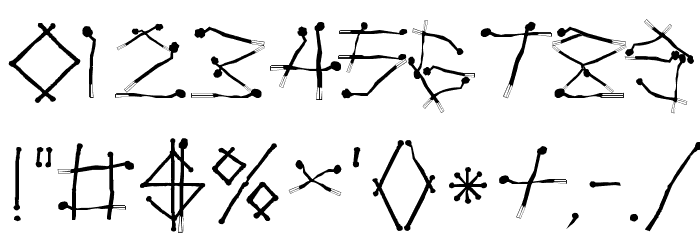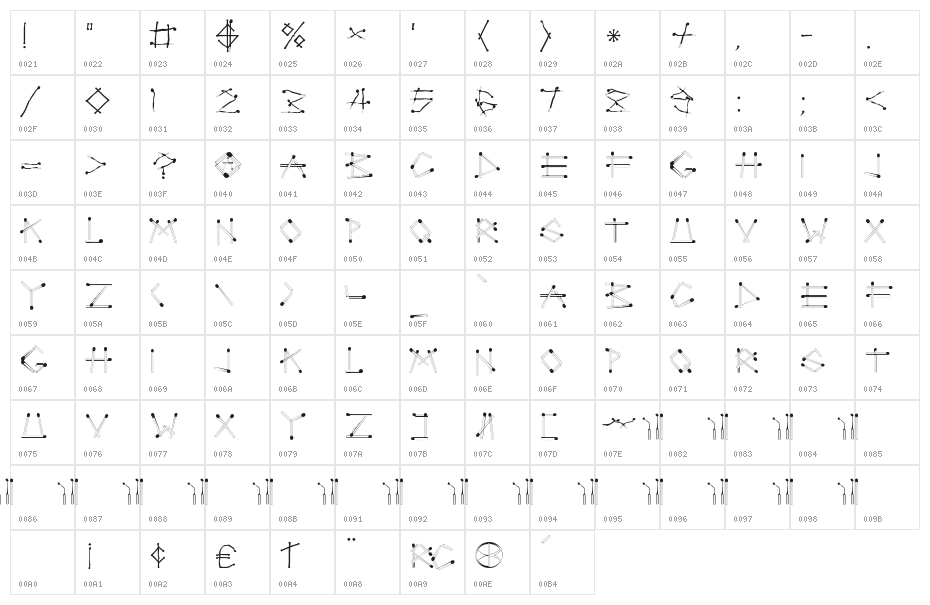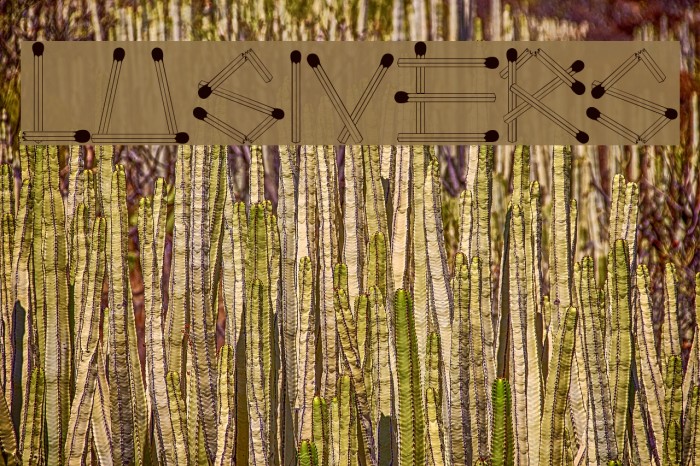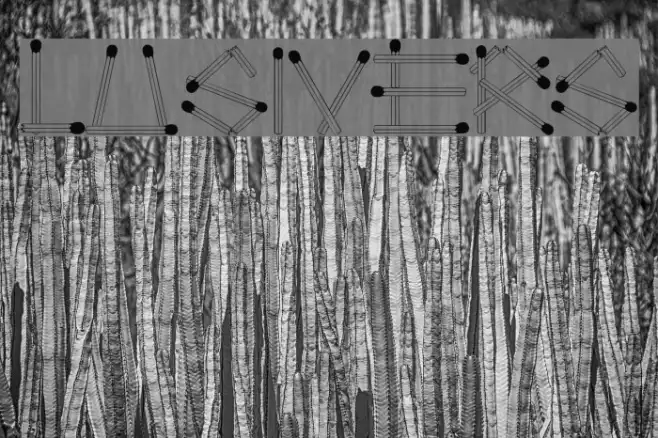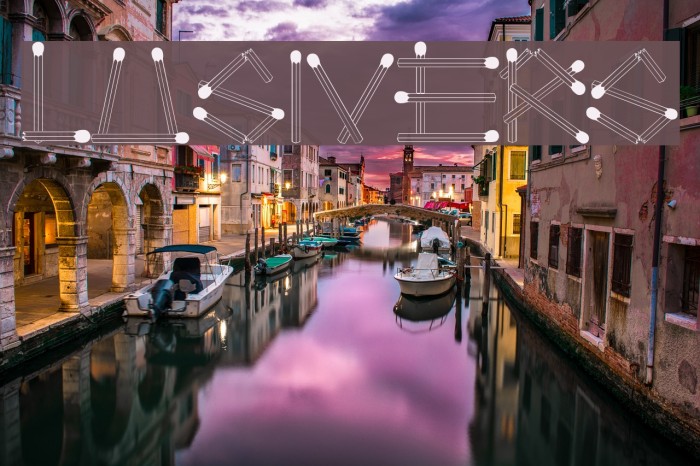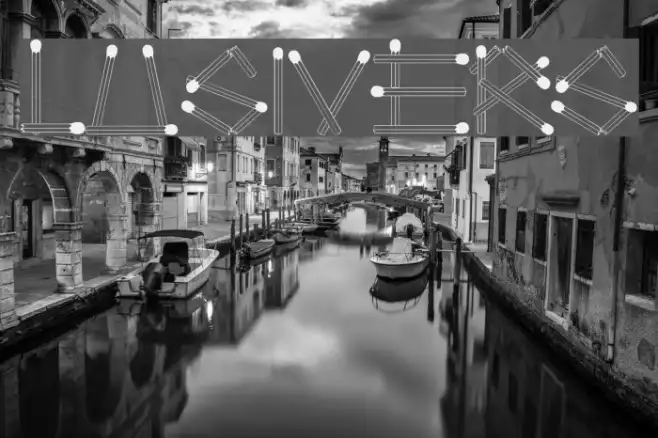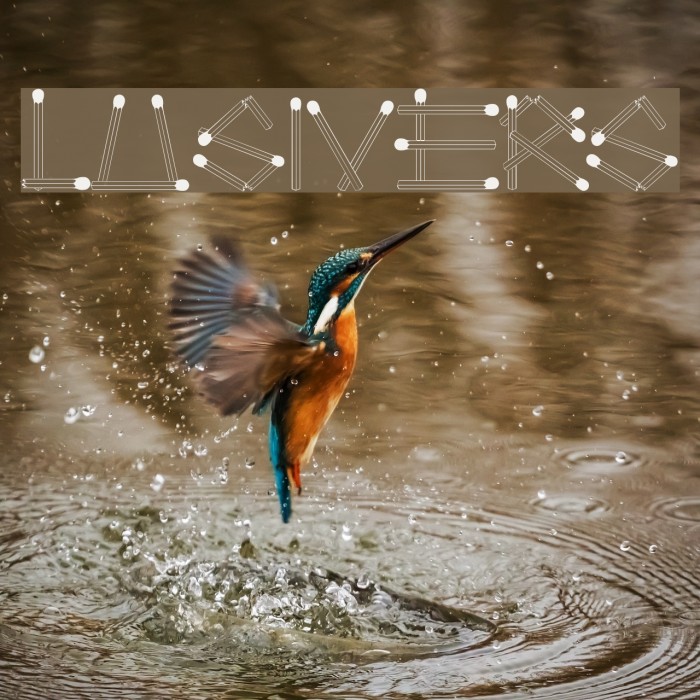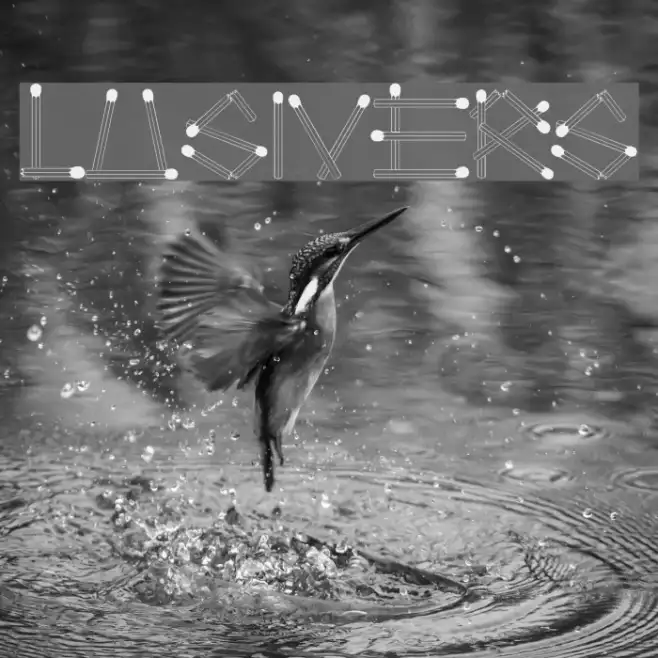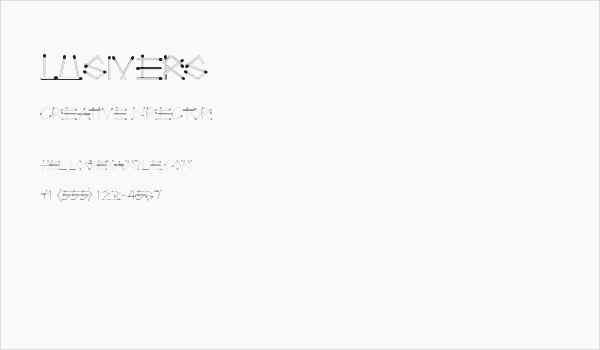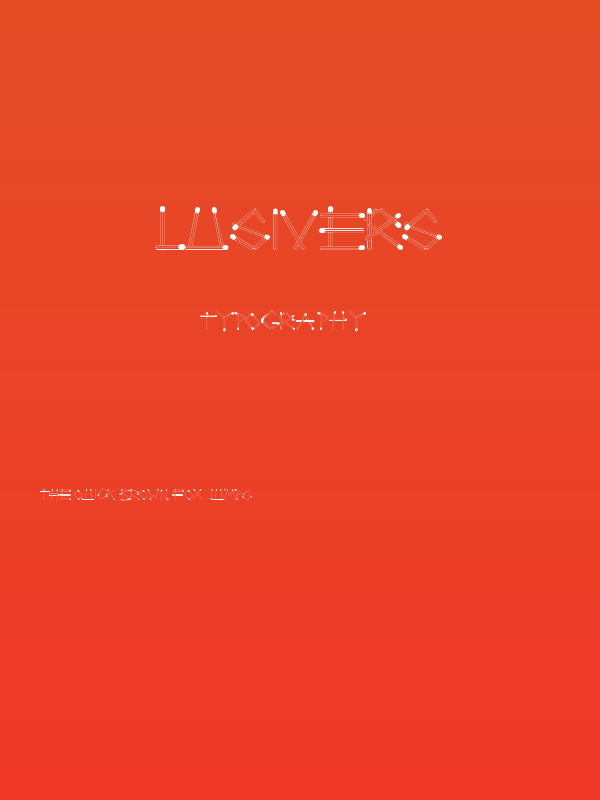
LUSIVERS Font
LUSIVERS Description
This font features a unique design that resembles a constellation or a network of connected lines and dots. Each character is composed of lines intersecting at various angles, with small circular nodes at the junctions, giving it a geometric and abstract appearance. The uppercase and lowercase letters maintain a consistent style, with the lines varying in thickness, creating a dynamic visual effect. The numbers and special characters follow the same pattern, ensuring uniformity across the entire set. This font's distinct style makes it stand out, offering a modern and artistic touch.
| Use Case | Logos, Posters, Digital Art |
| Proposed Projects | Ideal for projects that require a modern, artistic flair such as tech branding, futuristic posters, or digital art. |